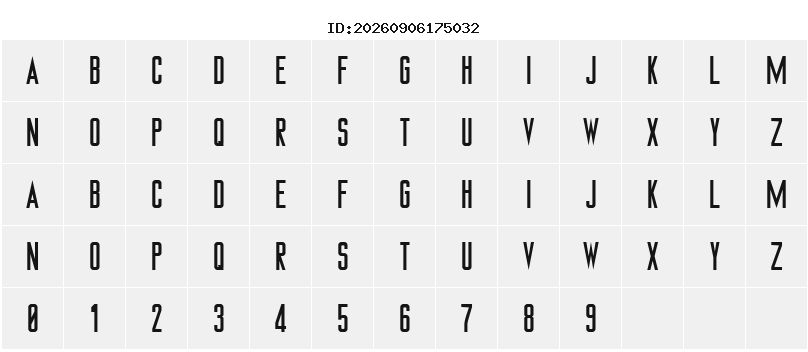
TNG Monitors Preview
• Font Name: TNG Monitors
• Font Style: Plain
• Font ID: TNG Monitors Plain
• Full Font Name: TNG Monitors Plain
• PostScript Name: TNGMonitorsPlain
• Character Count: 197
About TNG Monitors.ttf
TNG Monitors.ttf is a modern, elegant sans-serif font designed for ultimate readability and visual harmony. Perfect for branding, headlines, web design, and print materials.